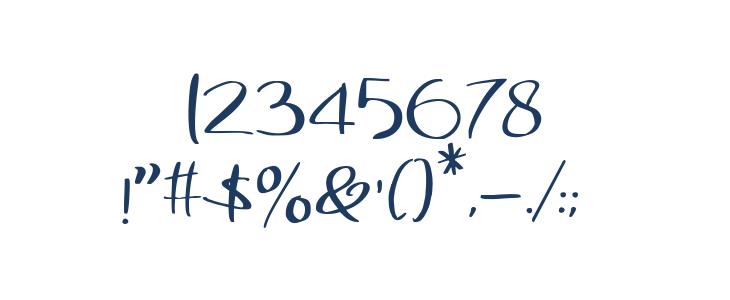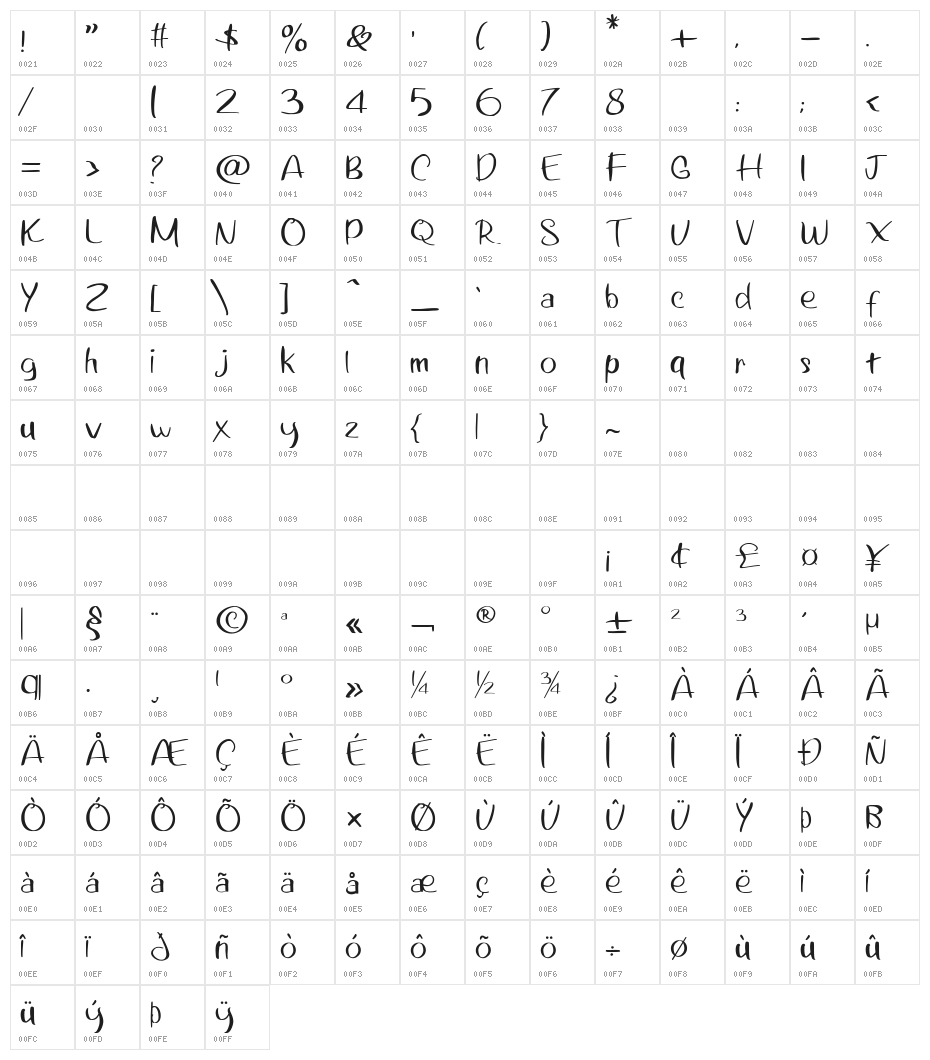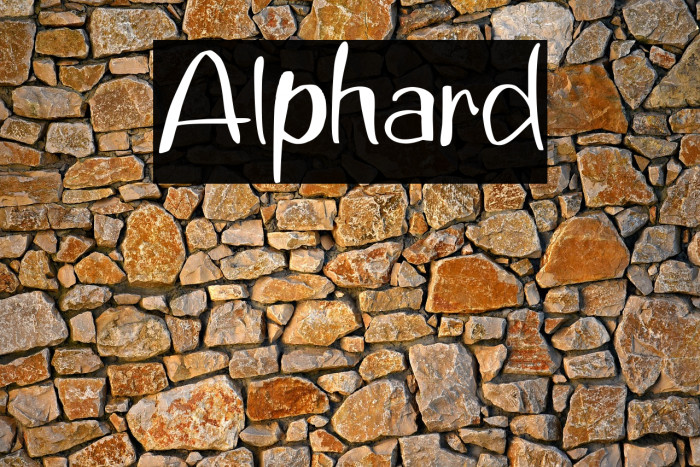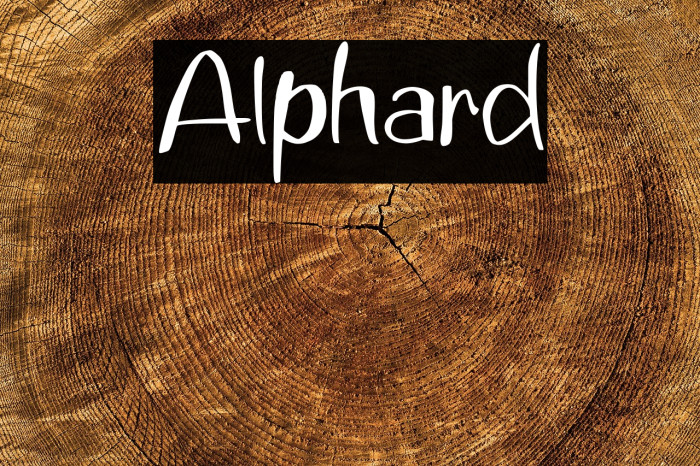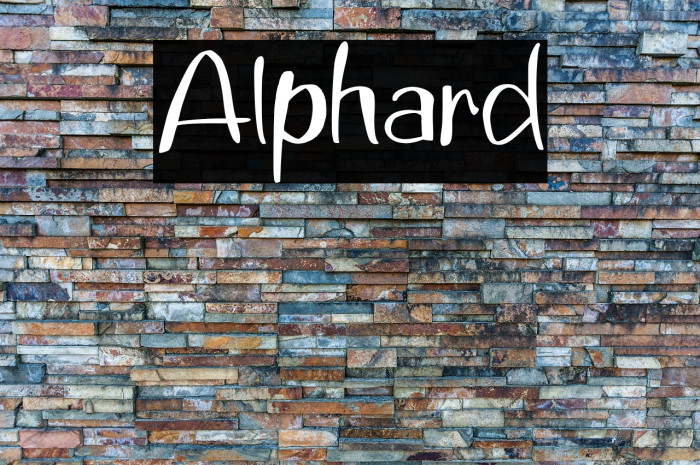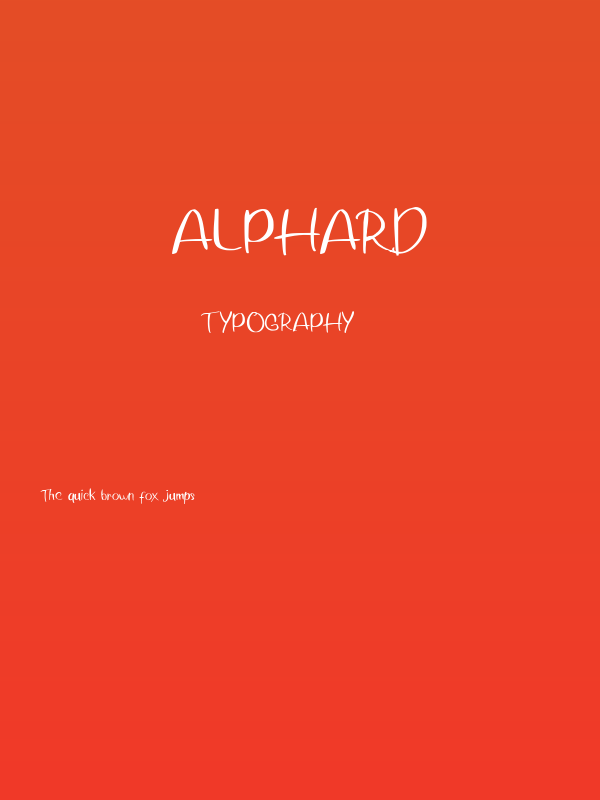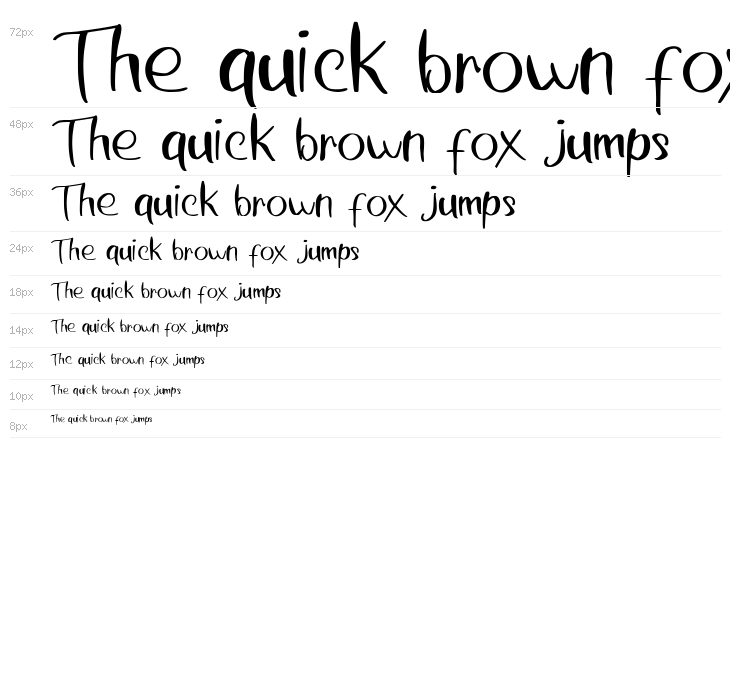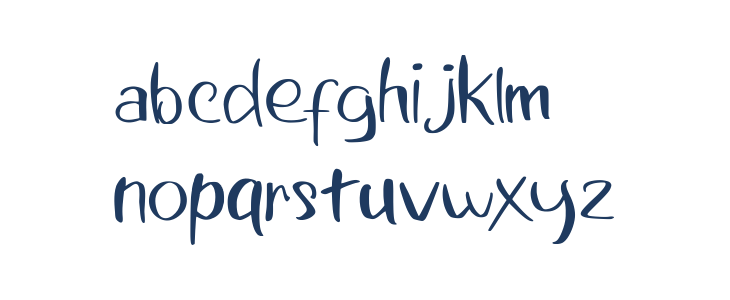
Alphard Font
Alphard Description
This font features a lively and expressive handwritten style, characterized by its fluid and dynamic strokes. The letters exhibit a playful yet sophisticated appearance, with a slight slant that adds to its casual elegance. Each character is distinct, with varying stroke widths that contribute to its organic feel. The uppercase letters are bold and prominent, while the lowercase letters maintain a consistent flow, enhancing readability. The numerals are well-balanced, matching the overall aesthetic of the alphabet. Special characters are creatively designed, maintaining the font's unique personality.
| Use Case | Logos, Headlines, Invitations |
| Proposed Projects | Ideal for creative projects such as greeting cards, invitations, branding, and social media graphics. |